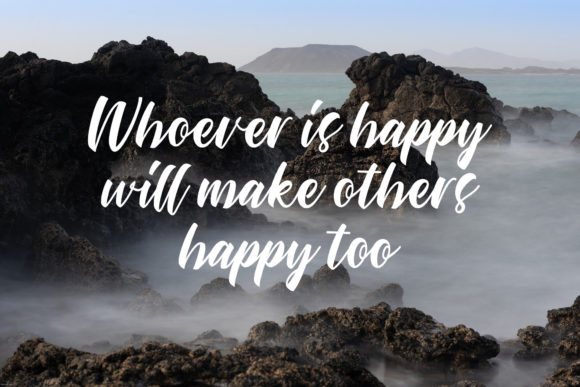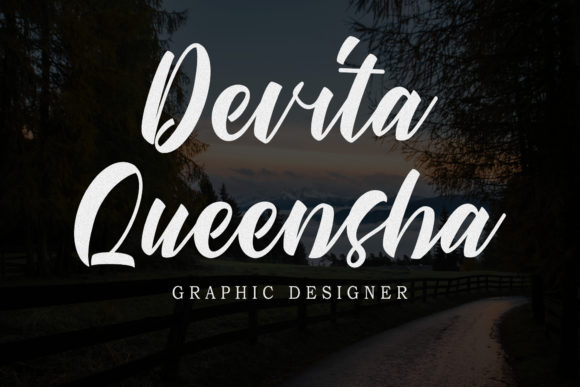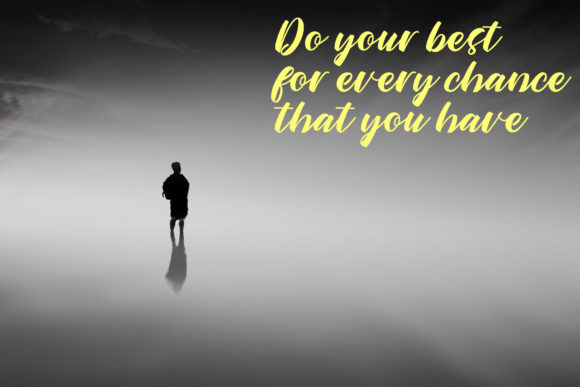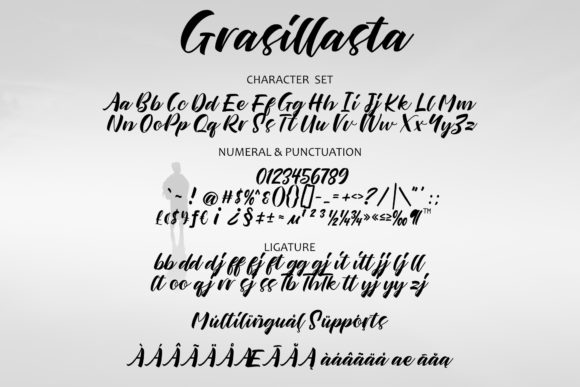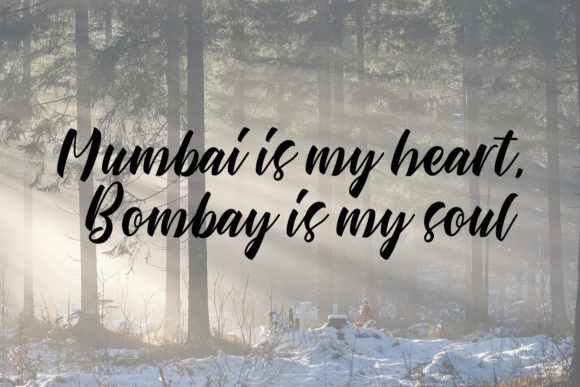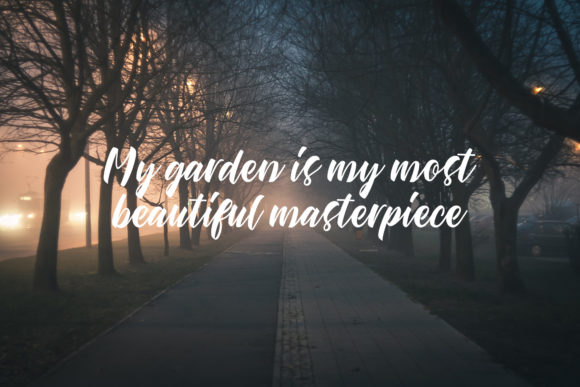
Grasillasta Font: A Sharp and Daring Handwritten Font for Your Design Needs
In the world of typography, a font can make or break a design. A well-crafted font can elevate your project from ordinary to extraordinary. If you’re a designer or crafter looking for a font that exudes confidence and style, look no further than Grasillasta. This sharp and daring handwritten font is perfect for adding a touch of nostalgia and sophistication to your headlines and logotype projects.
The Characteristics of Grasillasta Font
Grasillasta is a unique and eye-catching font that reads as strong, confident, and dynamic. Its sharp and clean lines give it a modern feel, while its handwritten nature adds a touch of warmth and personality. This font is perfect for designers who want to add a bit of edge to their projects without sacrificing readability. Grasillasta’s bold and daring personality makes it ideal for headlines, logotypes, and any other design project that requires a statement piece.
Adding Nostalgic Character to Your Designs
One of the standout features of Grasillasta is its ability to add tons of nostalgic character to your designs. The font’s classic feel and timeless appeal make it perfect for projects that require a retro or vintage vibe. Whether you’re working on a branding project, a packaging design, or a marketing campaign, Grasillasta can help you create a design that feels both modern and nostalgic. This font is sure to transport your audience back to a bygone era, evoking feelings of nostalgia and warmth.
Perfect for Headlines and Logotype Projects
Grasillasta is specifically designed for headlines and logotype projects, making it a versatile font that can be used in a variety of design applications. Its bold and confident personality makes it perfect for titles, headings, and any other design element that requires a strong visual impact. Whether you’re working on a logo design, a billboard, or a social media graphic, Grasillasta is sure to make your design stand out from the crowd.
Why Designers and Crafters Love Grasillasta
So, why do designers and crafters love Grasillasta? For starters, its unique and eye-catching design makes it a great way to add some personality to your projects. The font’s sharp and clean lines also make it highly legible, even at small sizes. Additionally, Grasillasta’s versatility makes it perfect for a wide range of design applications, from branding and advertising to packaging and marketing. Whether you’re a professional designer or a crafter, Grasillasta is a great addition to your font library.
Tips for Using Grasillasta in Your Designs
To get the most out of Grasillasta, here are a few tips to keep in mind:
- Use Grasillasta for headlines and titles to add a bold and confident touch to your designs.
- Pair Grasillasta with a clean and simple font to create a striking contrast.
- Don’t be afraid to get creative and experiment with different design applications, such as packaging and branding.
In conclusion, Grasillasta is a sharp and daring handwritten font that’s perfect for designers and crafters looking to add a touch of style and sophistication to their projects. Its unique and eye-catching design, combined with its versatility and legibility, make it a great addition to any font library. Whether you’re working on a headline, logotype, or any other design project, Grasillasta is sure to make a statement. So, why not give Grasillasta a try and see how it can elevate your designs to the next level?